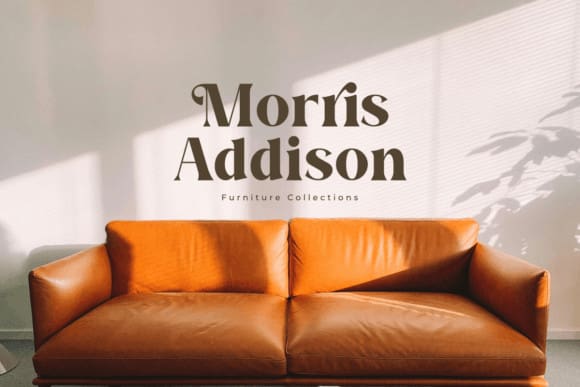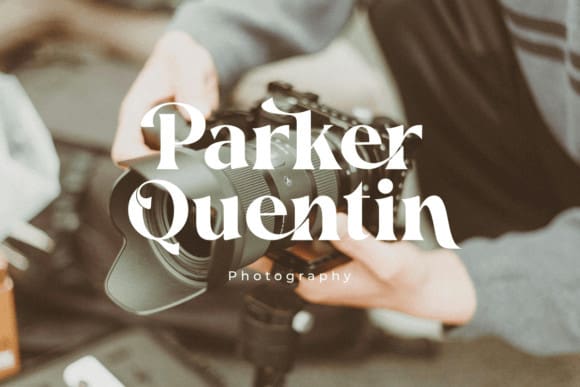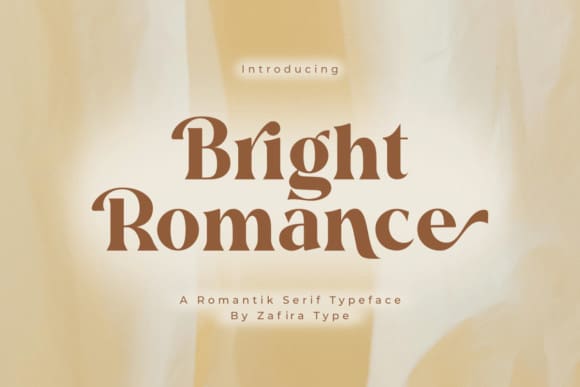
Bright Romance Font
Bright Romance Font is a captivating serif font, specially designed to bring an elegant and luxurious touch to all your design projects. Combining classic beauty with modern sophistication, this font offers the perfect balance between aesthetics and functionality.